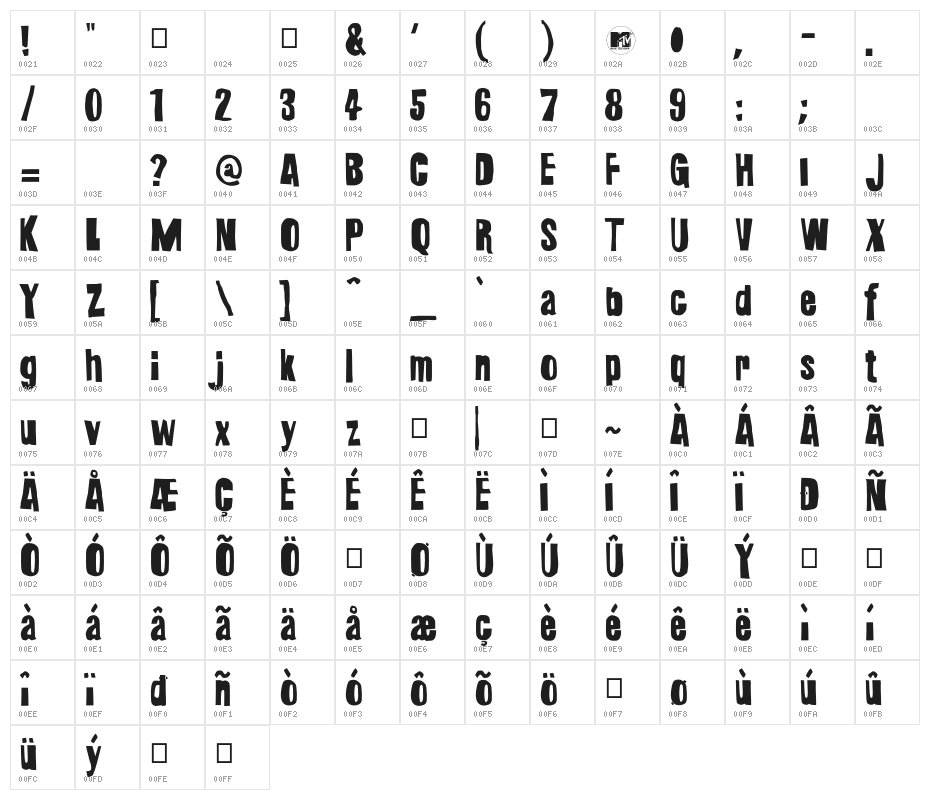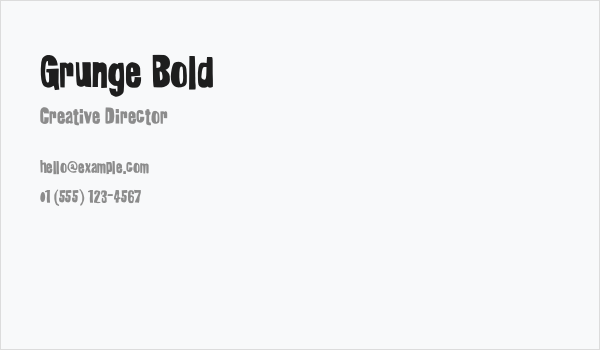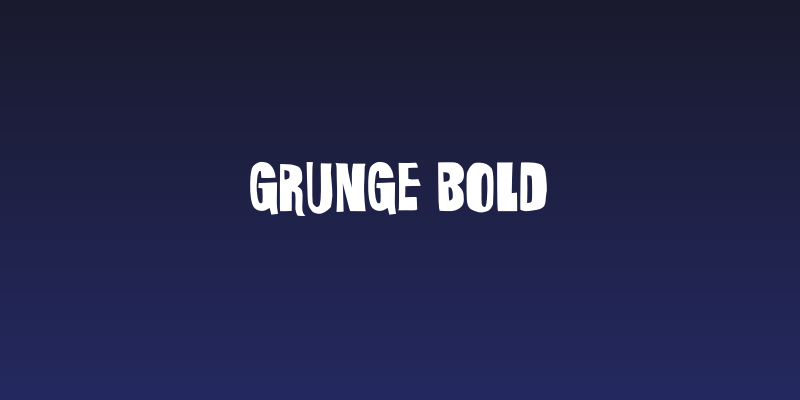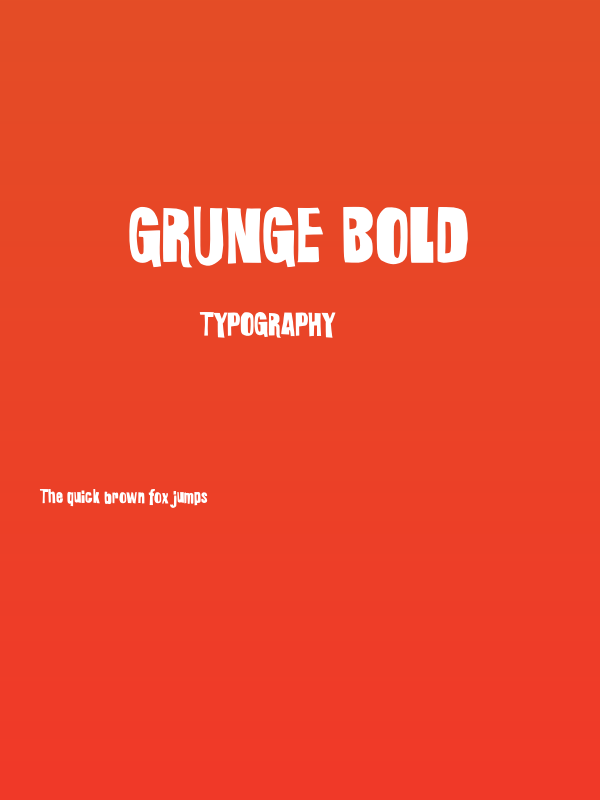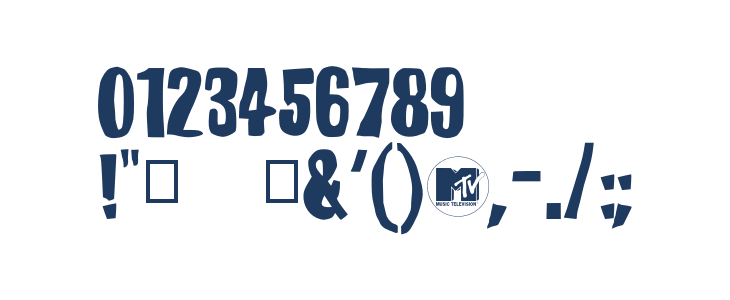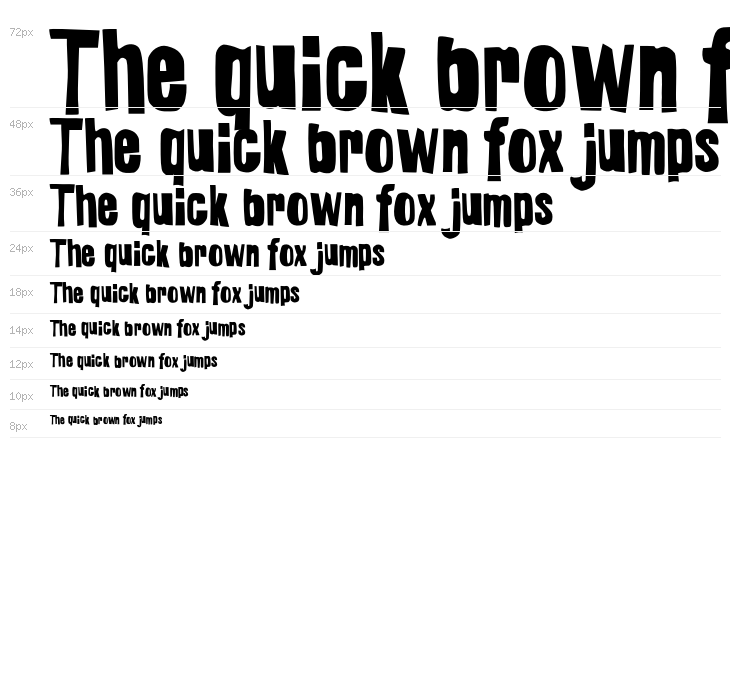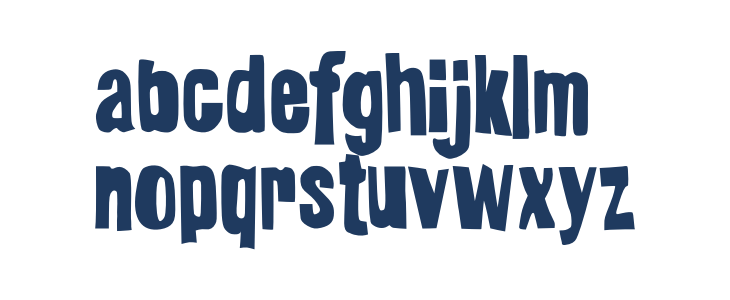
Grunge Bold Font
Grunge Bold Description
This font exhibits a bold, grunge-inspired aesthetic with irregular, distressed edges that give it a raw and edgy appearance. The uppercase and lowercase letters maintain a consistent boldness, while the numbers and special characters follow the same rugged style. The font's uneven strokes and slightly distorted shapes contribute to its unique and rebellious character, making it stand out in any design. Its boldness and distinctive style are perfect for projects that require a strong visual impact.
| Overall Style | Grunge, Edgy |
| Proposed Projects | Ideal for music album covers, posters, streetwear branding, and edgy graphic designs. |